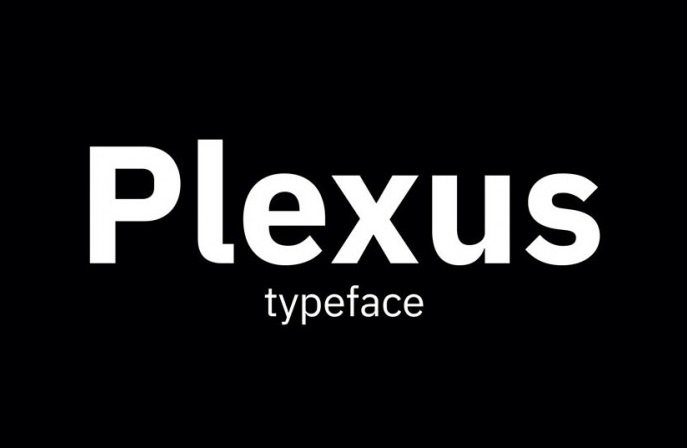
Plexus Font Family
This Typeface designed by Joshua Smith is an elegant, strong sans serif font family derived from IBM Plex, Plexus neutralizes some of the most unique brand-specific characters of it. Typeface featured by 7 fonts from Thin to Bold weight, contains full set of glyphs, including uppercase and lowercase letters, numbers, symbols and language support.